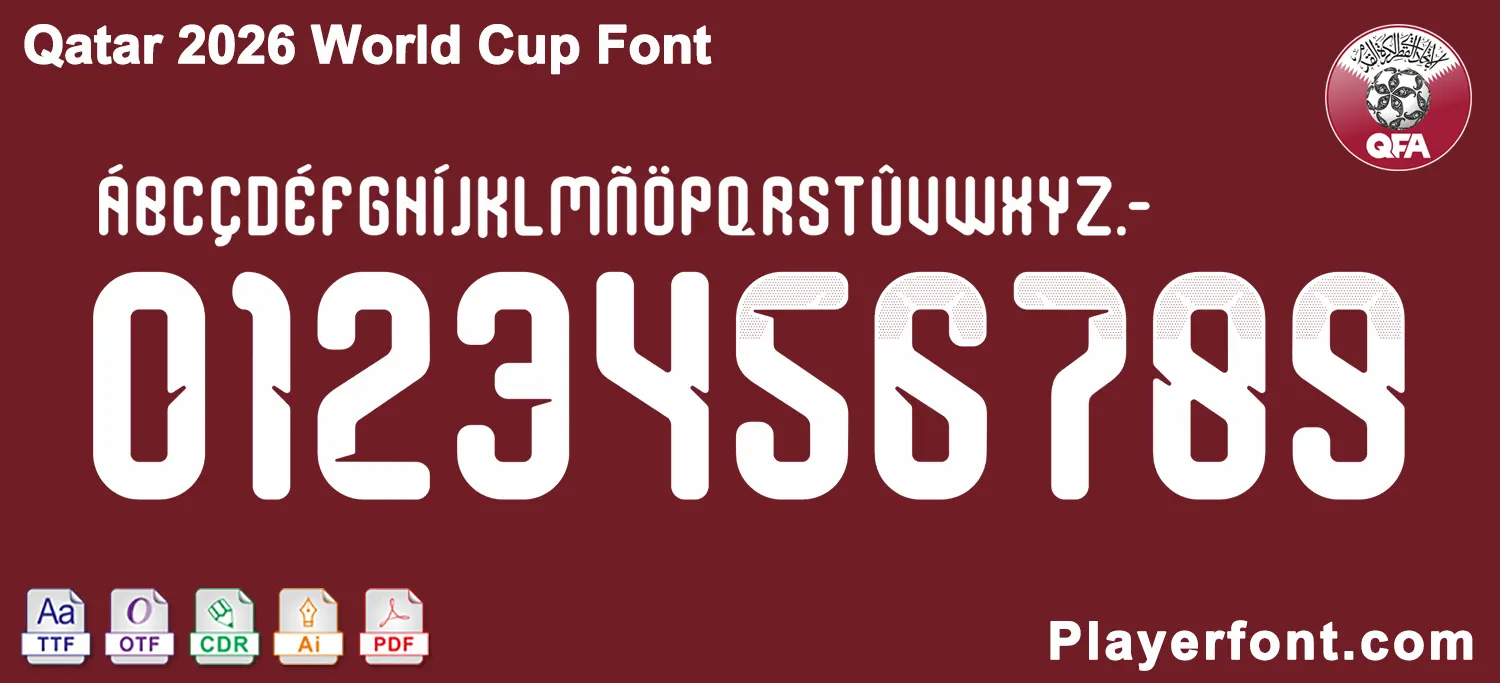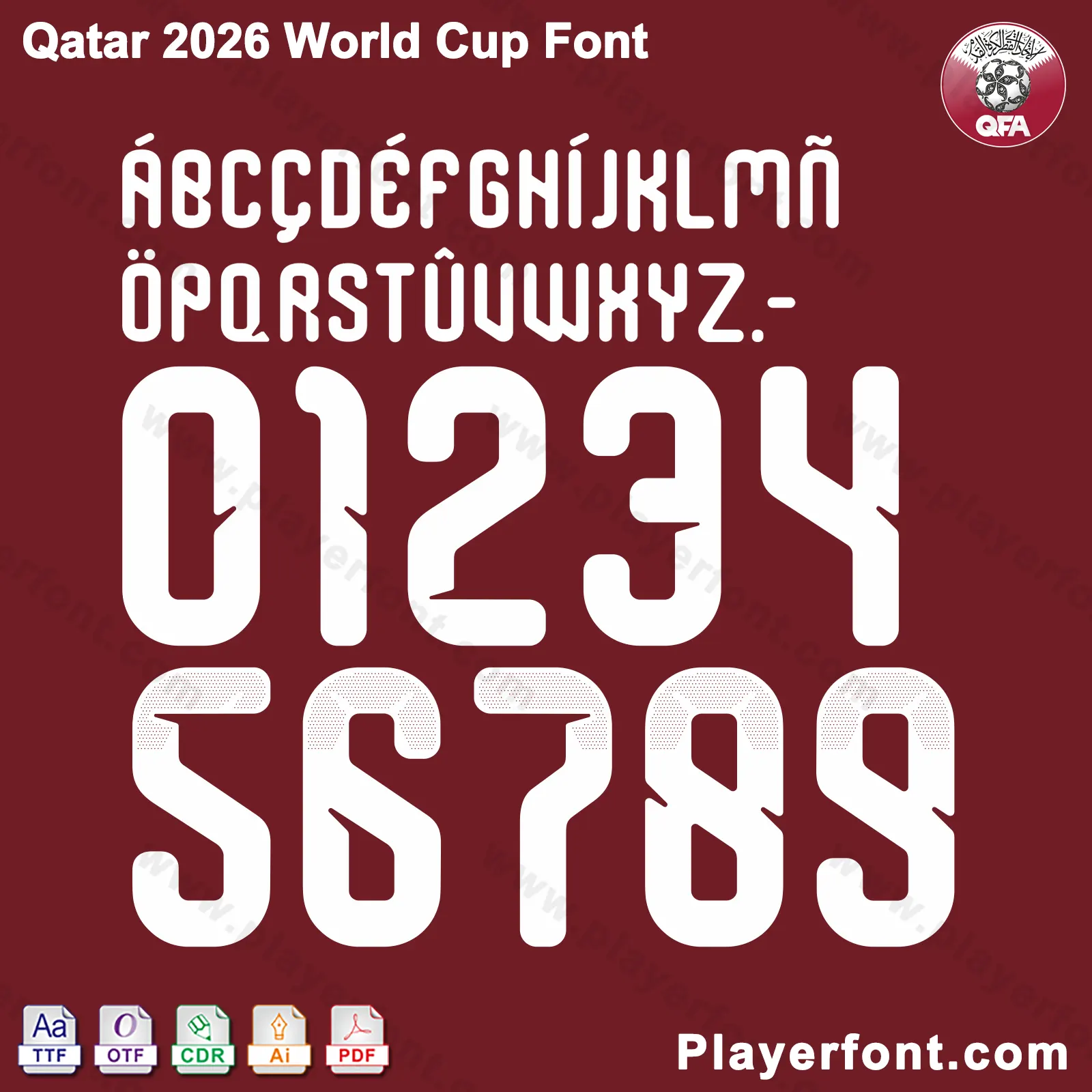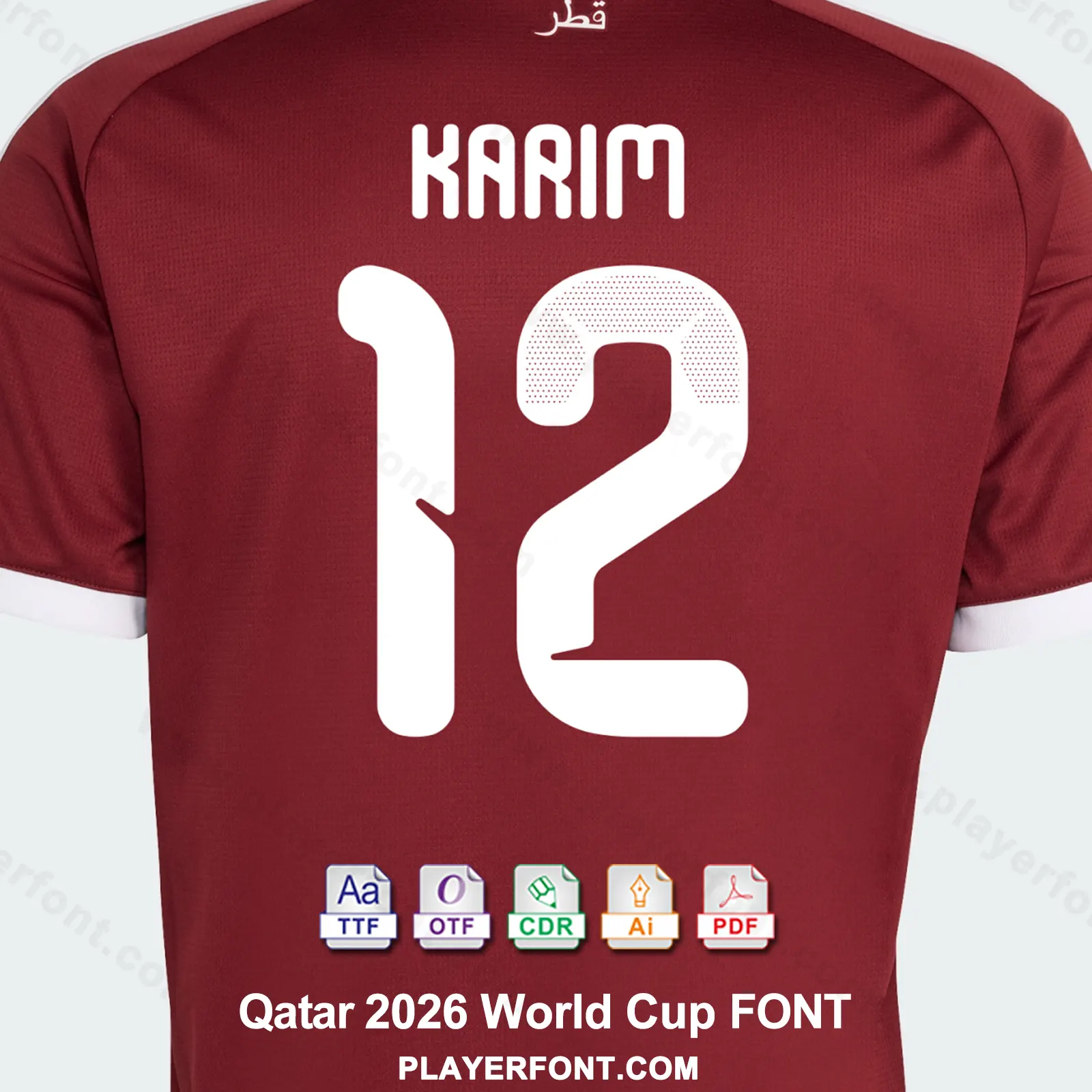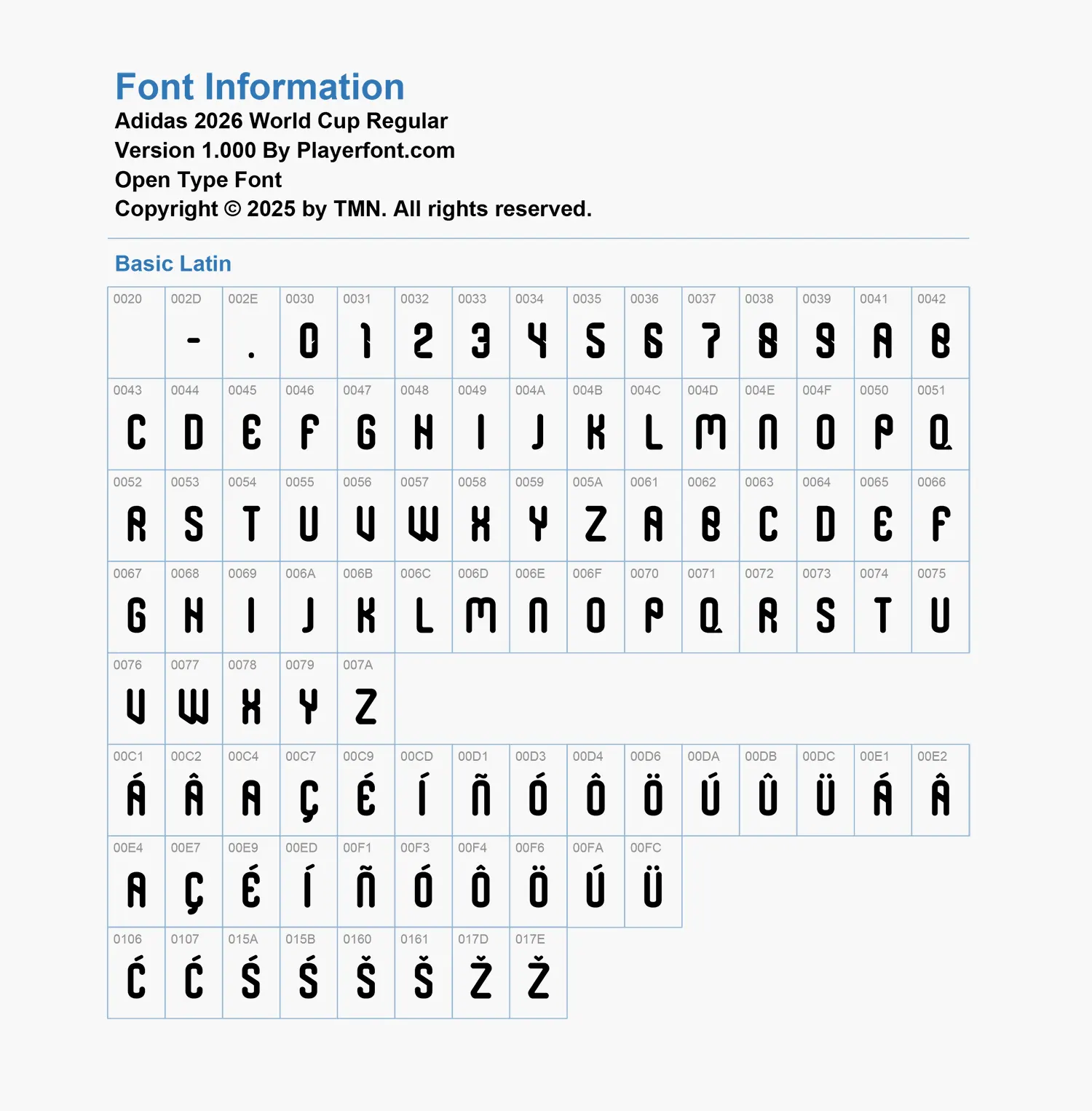
Elevate your sports jersey mockups, football custom graphics, and vector apparel printing projects with the high-quality Qatar 2026 World Cup Font Download. Masterfully engineered by Playerfont.com, this high-performance typography set replicates the official-style numbers and clean lettering featured on the pitch for the upcoming FIFA 2026 tournament campaigns.
Key Typography Features & Character List:
This typography pack is fully optimized to support international player rosters and diverse numbering layouts:
- Basic Latin Set: Contains the complete A-Z uppercase character set, clean custom numbers (0-9), punctuation marks, and hyphens.
- Advanced International Accent Support: Includes a complete set of accents (such as Á, Â, Ã, Ç, É, Ñ, Ó, Ô, Ö, Ú, Ü) ensuring flawless rendering for global football stars.
- Authentic Visual Details: The jersey numbers feature unique slash cutouts and a distinct dot-matrix/half-tone pattern embedded on the top curves of specific digits (like 4, 5, 6, 7, 8, 9) for maximum design authenticity.
| Design Feature | Modern Cut Geometry with Faded Dot Matrix Details |